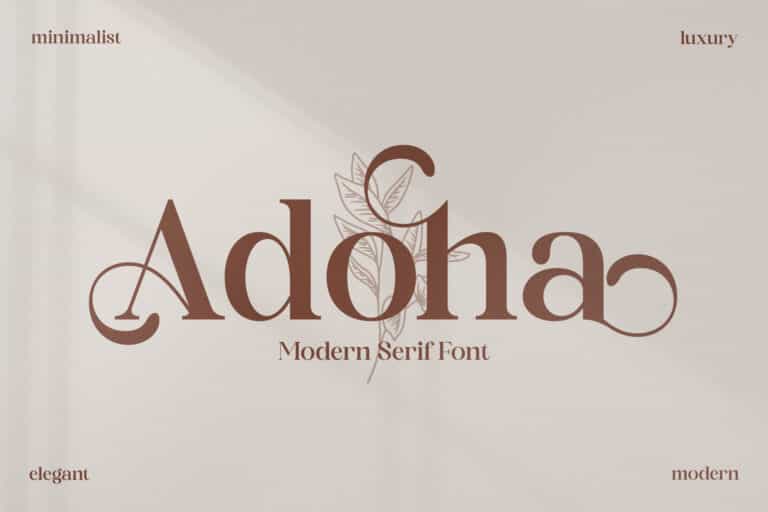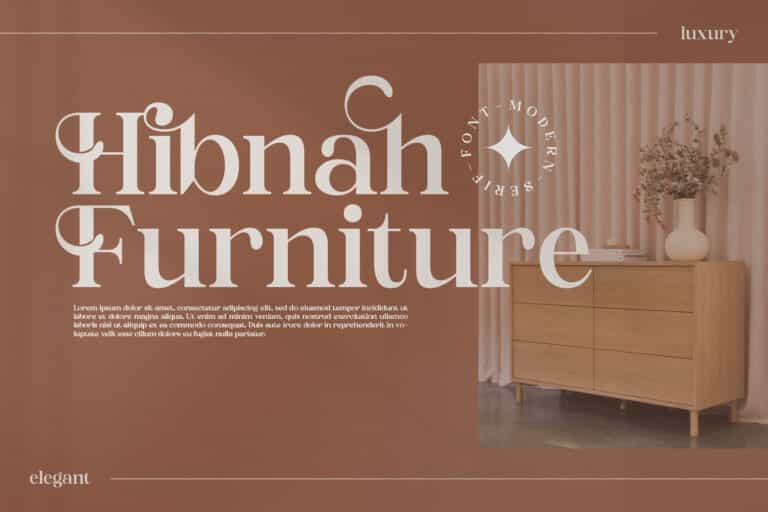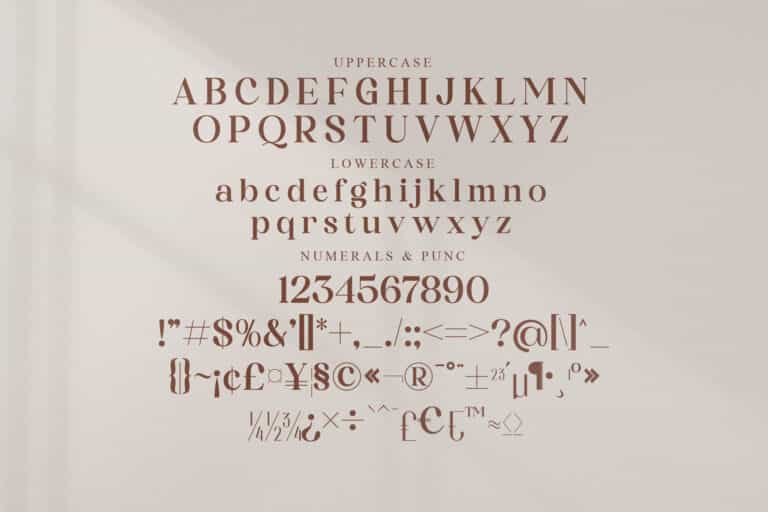
Storytype’s Adoha Serif font is an eye-catching modern serif and classic typeface with its distinct style and contemporary appearance, ideal for luxurious logo designs, movie or book name designs, fashion magazine cover pages, clothing labels and lettering projects, quotes as well as quotes written out. This typeface makes an unforgettable statement and is sure to impress its audience.